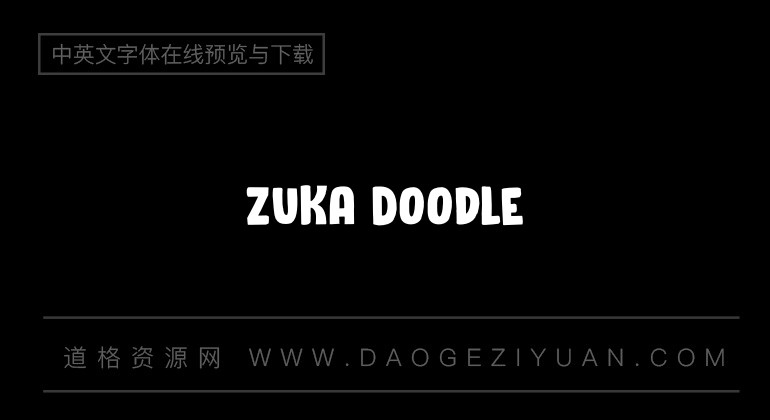
Zuka Doodle is a fun and playful handwritten font that features a quirky and unique style. The letters have irregular shapes and sizes, with varying thickness and slants. The font includes both uppercase and lowercase letters, as well as numbers and basic punctuation marks. Zuka Doodle is ideal for projects that require a fun and playful vibe, such as children's books, greeting cards, social media graphics, and more. Its unique style makes it perfect for designs that need a touch of whimsy and creativity. Zuka Doodle is available for purchase or download from various font websites and can be used in both personal and commercial projects.内容介绍
Zuka Doodle是一款非常不错的手写艺术字体,具有很好的视觉感,适合于文化类的宣传设计、商业类品牌的广告和产品包装设计以及个性化文字排版等较多场景。